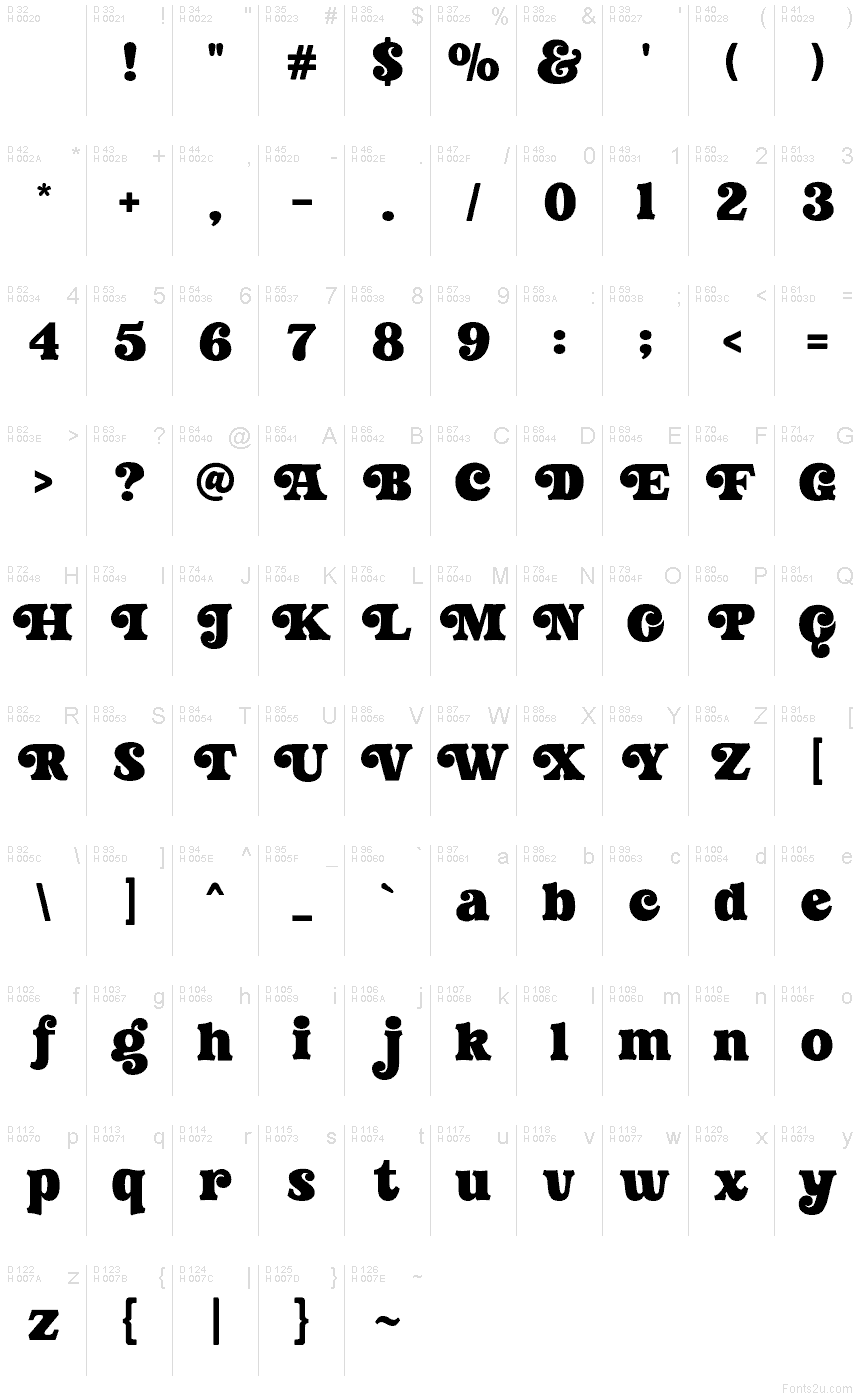
Magic Vintage
Magic Vintage font by HansCo is a free retro serif font. Built on plush, inky curves and chunky letterforms, it channels late‑60s poster drama without feeling kitschy. The weighty shapes puff out like velvet ink, while playful curls tuck into the counters, giving every word a showpiece swagger and a warm, analog thump.
Using Magic Vintage, headlines snap to attention and read with rhythm, even at tight settings. This free font shines on festival posters, record covers, boutique signage, coffee packaging, craft beer labels, and bold social banners. For balance, pair it with a clean neo‑grotesque or a quiet geometric sans and let Magic Vintage handle the headline at oversized scales.